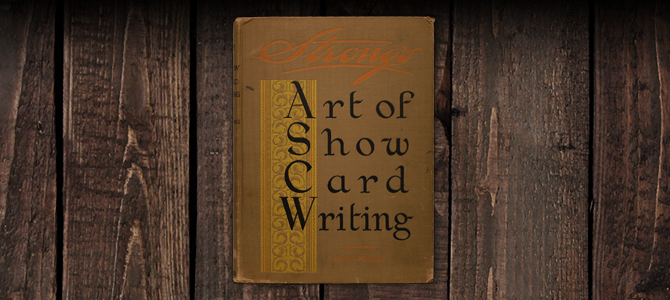
Strong's Art of Show Card Writing - C.J. Strong - 1919
Strong's Art of Show Card Writing is one of largest and most comprehensive books on the subject of show card writing ever published. With over 240 pages of instructional materials, advertising layouts, material and tool selections and a collection of alphabets, this is a much own for anyone interested in the trade.